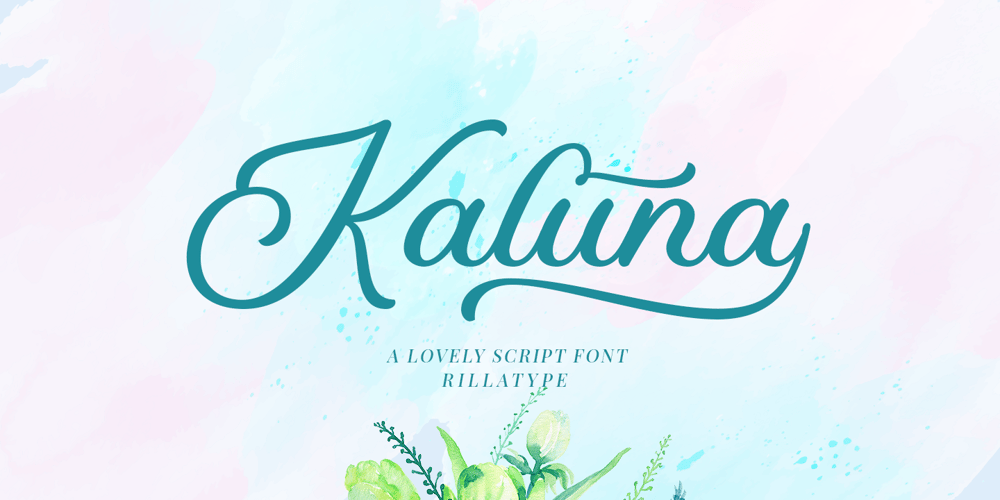
Kaluna Script Font Family was designed by Gustian Agung Asprilla and published by Rillatype. Kaluna Script contains 1 styles and family package options. Kaluna Script is a lovely font with tons of swashes! Kaluna is perfect for headlines, logotypes, clothing, invitations, branding, packaging, advertising, and more. This typeface comes in uppercase, lowercase, with punctuation, symbols, numerals, stylistic set alternate, ligatures, etc also multi-lingual support. Type _1, _2, _3 to access the underline, example : Kaluna_1, Kaluna_2, Kaluna_3If you have any question, feel free to PM us or reach us Rillatype@gmail.com